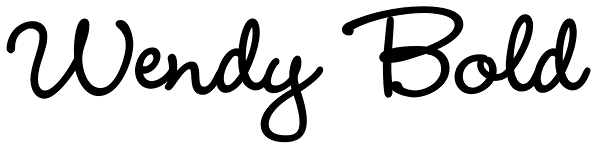
Wendy LP
The Wendy family is a cursive script provided in three weights -- Light, Medium and Bold. The design is an upright, casual handwriting style, with natural joins and connecting strokes. Wendy, in her various modes, projects a friendly persona, adding...